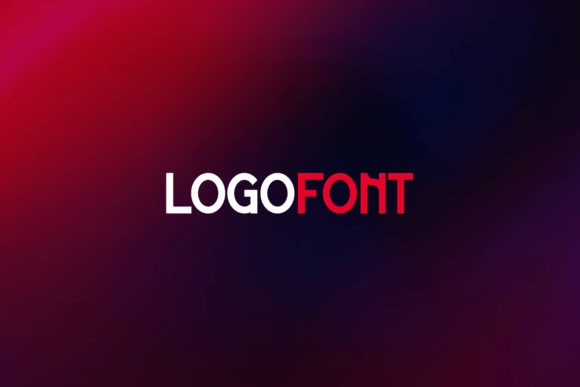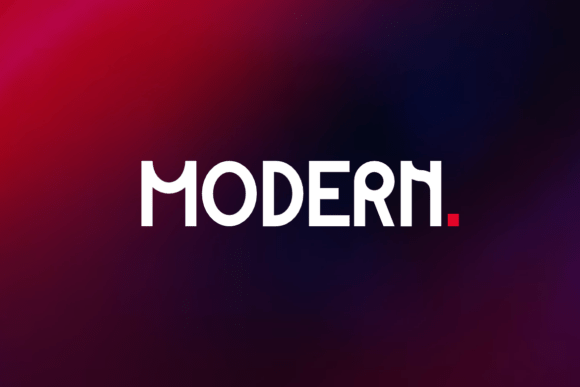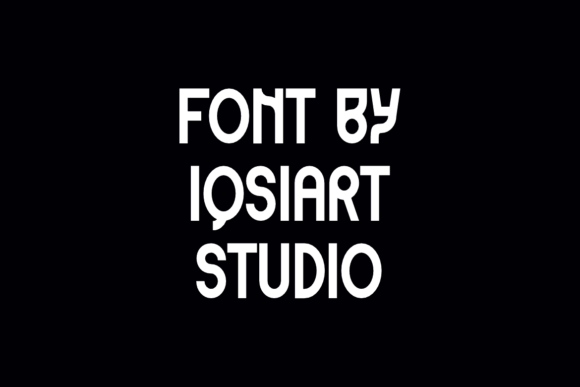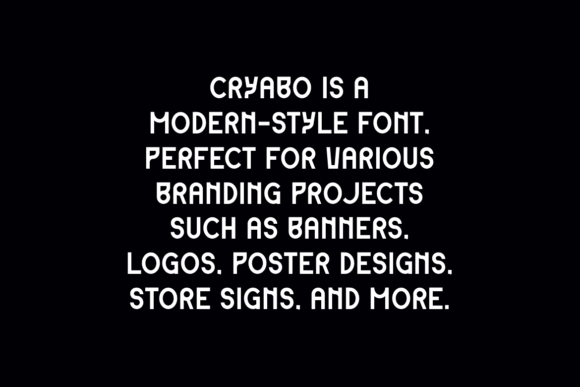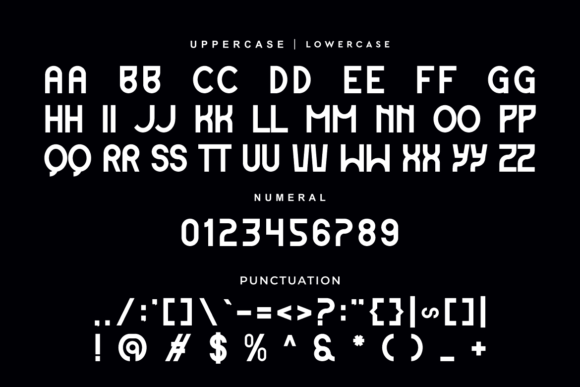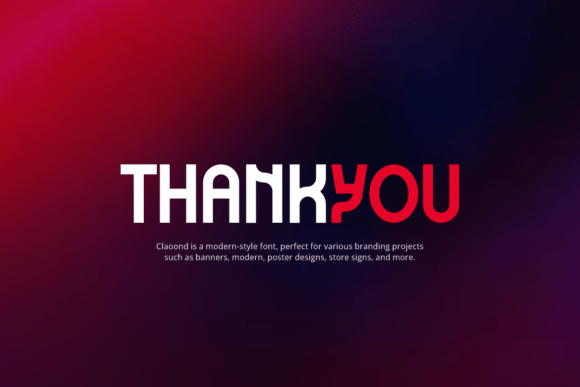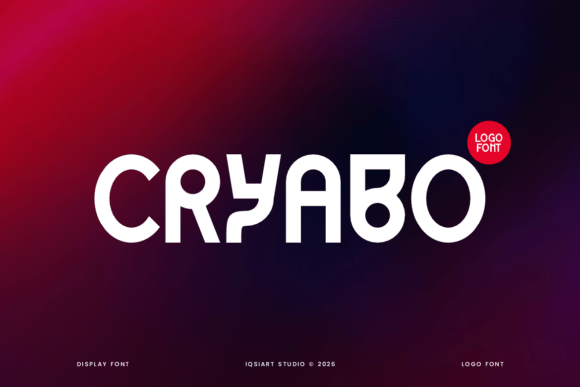
Cryabo Font: Elevate Your Designs with a Bold and Authentic Display Typeface
In the world of design, typography plays a crucial role in conveying messages, evoking emotions, and creating visual identities. For designers and crafters seeking a font that makes a statement, Cryabo Font is an exceptional choice. This bold and authentic display typeface is designed to cater to a variety of design needs, offering a fresh and versatile option for creative projects.
What is Cryabo Font?
Cryabo Font is a meticulously crafted display typeface that exudes confidence and style. Its bold and authentic design makes it perfect for headlines, titles, and any application where a strong visual impact is desired. Whether you’re working on a branding project, advertising campaign, or simply looking to add some flair to your digital or print materials, Cryabo Font is an excellent option to consider.
Key Features of Cryabo Font
- Bold and Authentic Design: Cryabo Font boasts a unique and captivating design that is sure to grab attention.
- Versatile: Suitable for a wide range of design projects, from branding and advertising to packaging and digital media.
- Easy to Read: Despite its bold nature, Cryabo Font remains clear and legible, making it perfect for use in various contexts.
Exploring the Cryabo Font Family
Cryabo Font offers numerous benefits for designers and crafters, including:
- Time-Saving: With Cryabo Font, you can quickly and easily add a professional touch to your designs, saving you time and effort.
- Consistency: The bold and authentic design of Cryabo Font ensures consistency across your projects, helping to establish a strong visual identity.
- Creativity: The versatility of Cryabo Font inspires creativity, allowing you to experiment with different design concepts and push the boundaries of your imagination.
Tips for Using Cryabo Font
To get the most out of Cryabo Font, consider the following tips:
- Pair with Complementary Fonts: Combine Cryabo Font with other fonts to create visually appealing contrasts and add depth to your designs.
- Experiment with Colors: Don’t be afraid to try out different color schemes and textures to enhance the impact of Cryabo Font in your designs.
- Play with Size and Scale: Cryabo Font looks great in various sizes, so experiment with different scales to create visual interest and hierarchy.